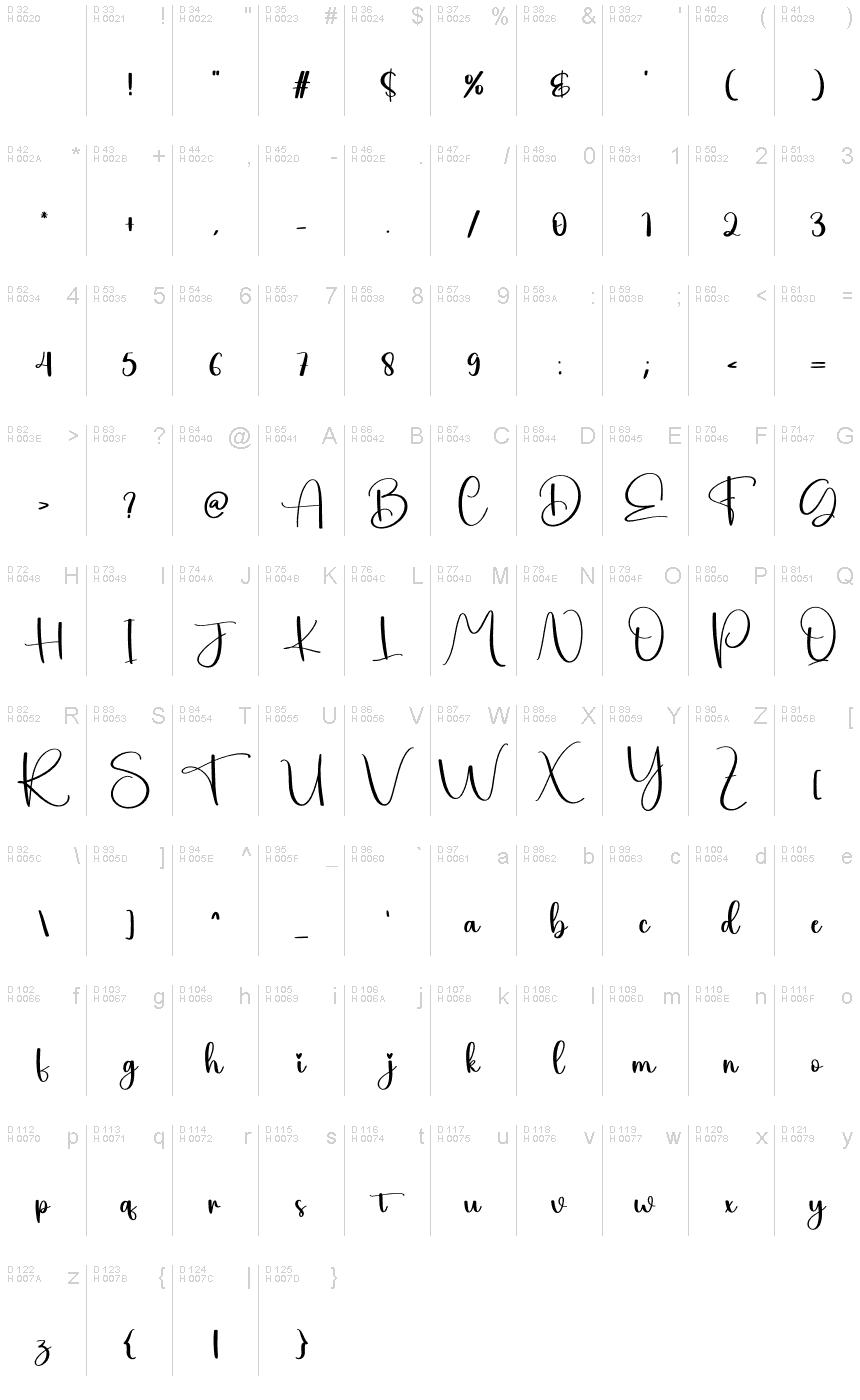
Daddy
Daddy, a captivating calligraphy font by Scratchones, adds an elegant touch to your projects.
Its semi-light weight effortlessly blends sophistication and readability, making it perfect for wedding invitations that exude charm and grace. With its flowing strokes and graceful curves, Daddy also brings a touch of magic to fantasy novel covers, giving them an enchanting allure. Additionally, this font's delicate yet legible style lends itself well to branding materials for high-end fashion boutiques or luxury beauty products.
Give your designs a tasteful and refined edge with Daddy's enchanting calligraphy.